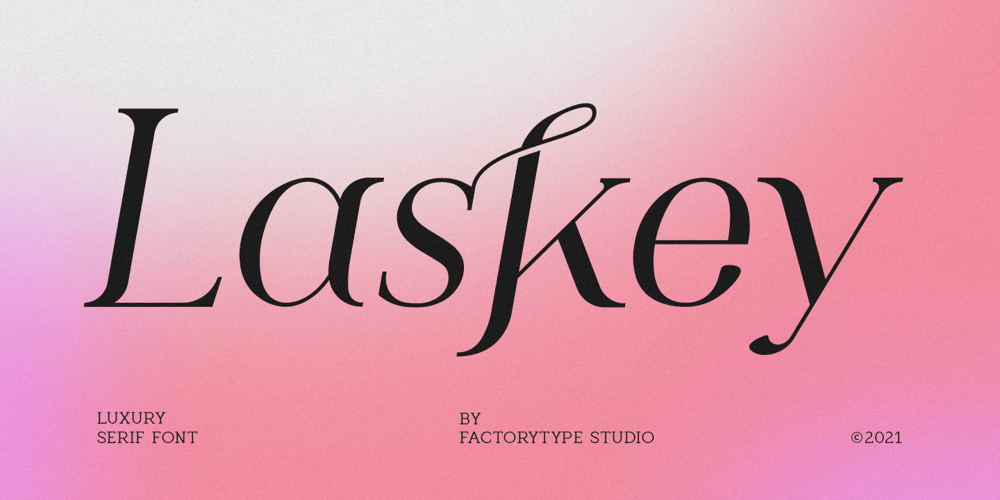
Laskey
Laskey font
Laskey Font Family was designed by Wahyu Rahmawan and published by Factory738. Laskey contains 2 styles and family package options. Laskey, a new retro serif, is now available! Laskey is a stylish font that is both retro and sophisticated. The serifs bring it back to tradition, while the smooth curves give it a 70s groovy vibe. Laskey is a perfect match for those vintage moodboards and logos. Numbers, punctuation, and multilingual letters are all included, as well as a distinct lower and uppercase. The ligature and italic fonts will come in handy for anything your imagination can think of! Laskey (Regular and Italic) Basic Latin A-Z and a-z Numerals & Punctuation Stylistic Alternates & Ligatures Multilingual Support for ä ö ü Ä Ö Ü … Free updates and feature additions Thanks for looking, and I hope you enjoy it.